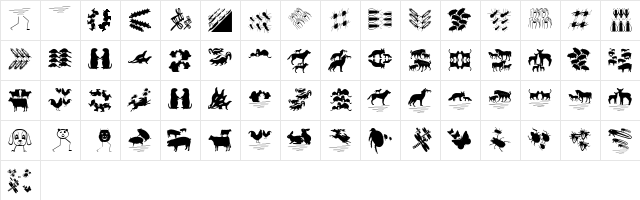
DueTresQuattro Regular
Design Context for DueTresQuattro Typeface
DueTresQuattro is a composed and adaptable typeface that performs quietly and consistently across a wide range of design contexts.